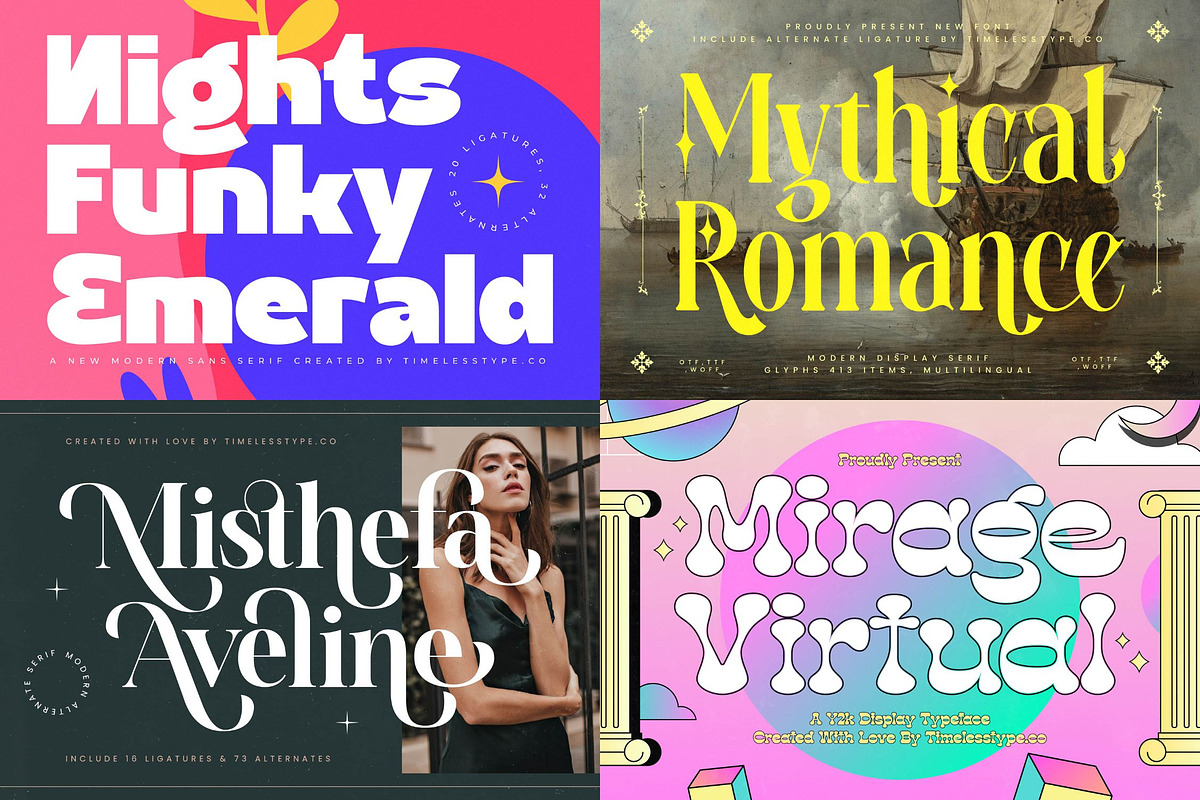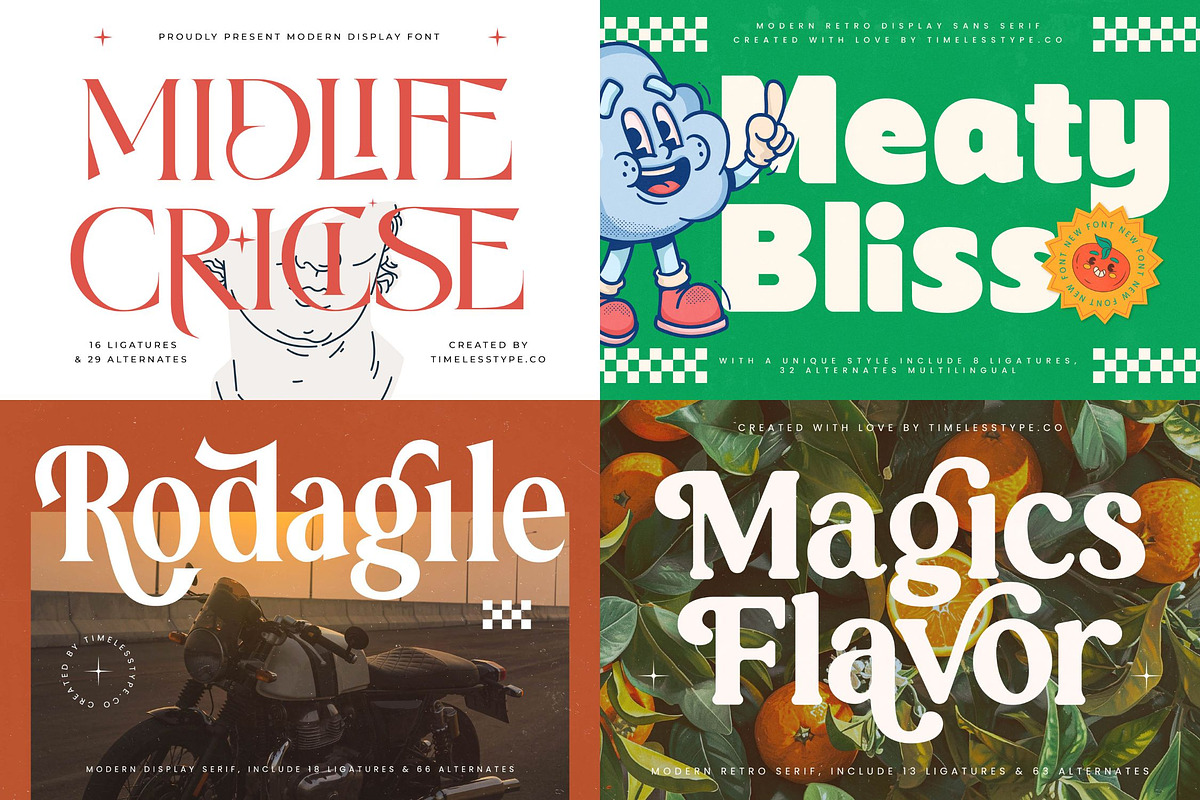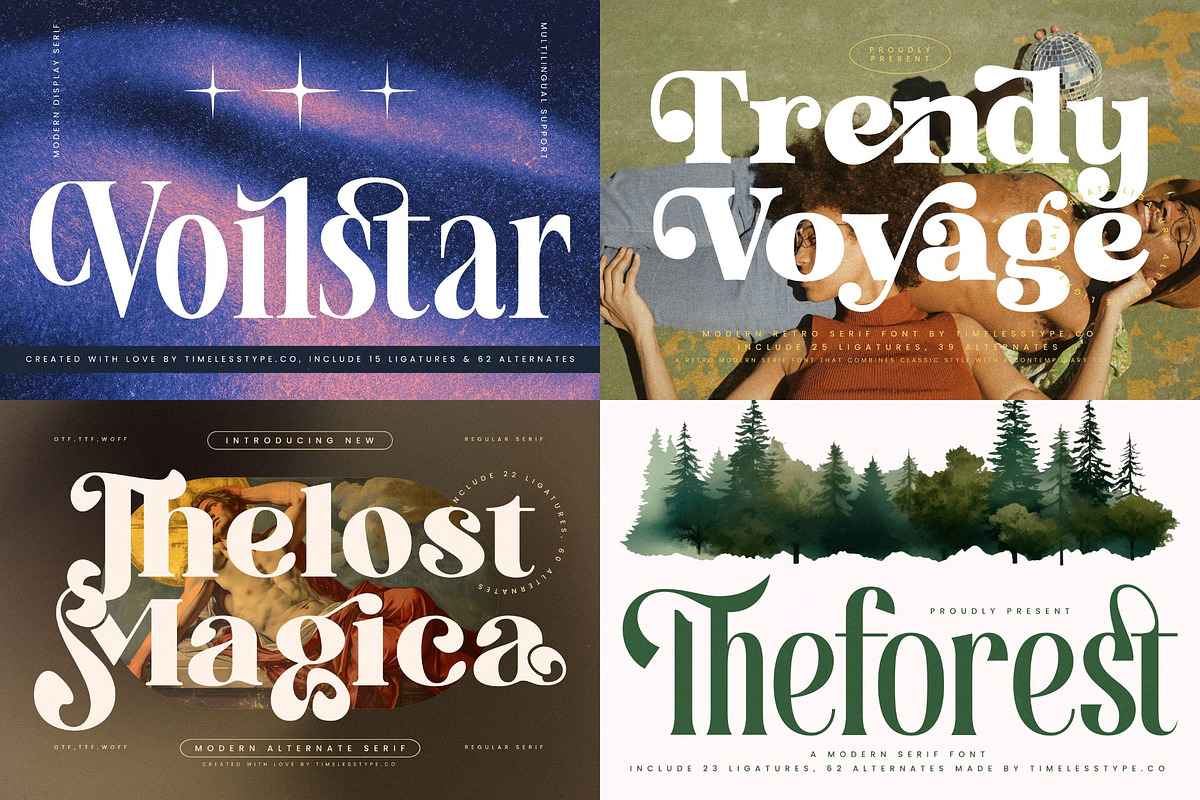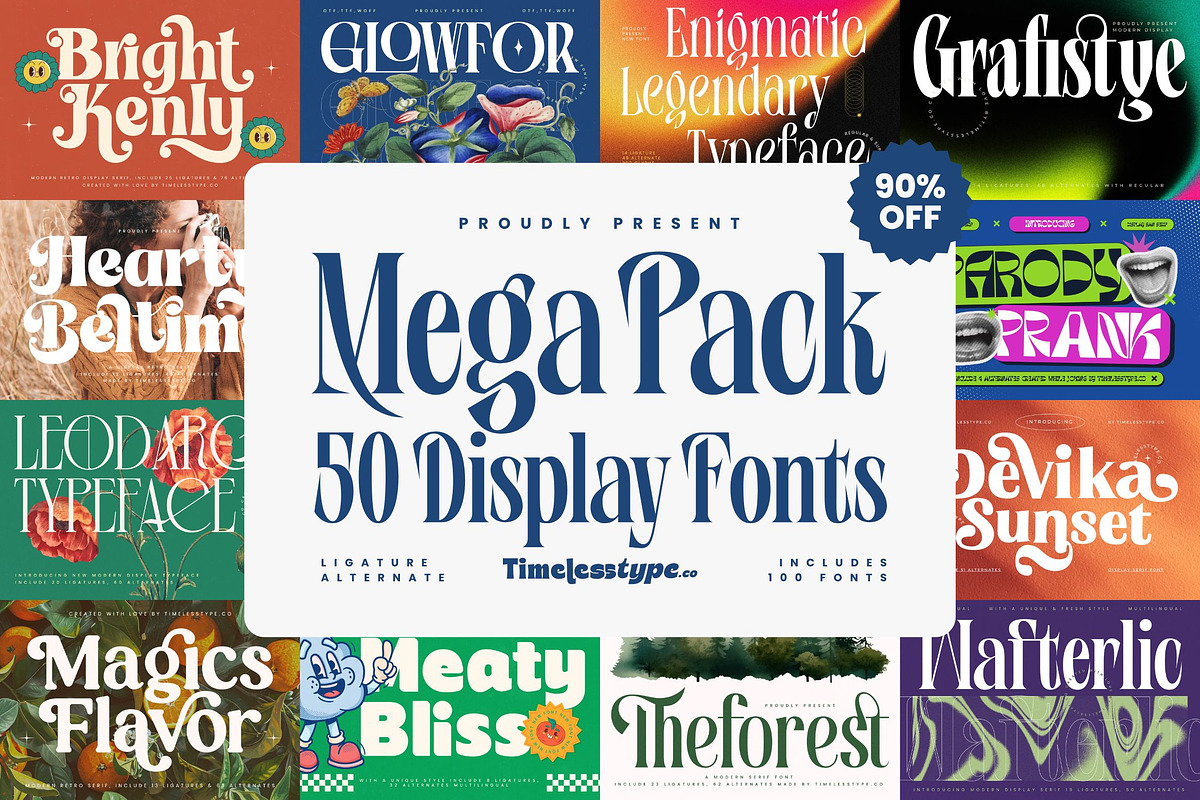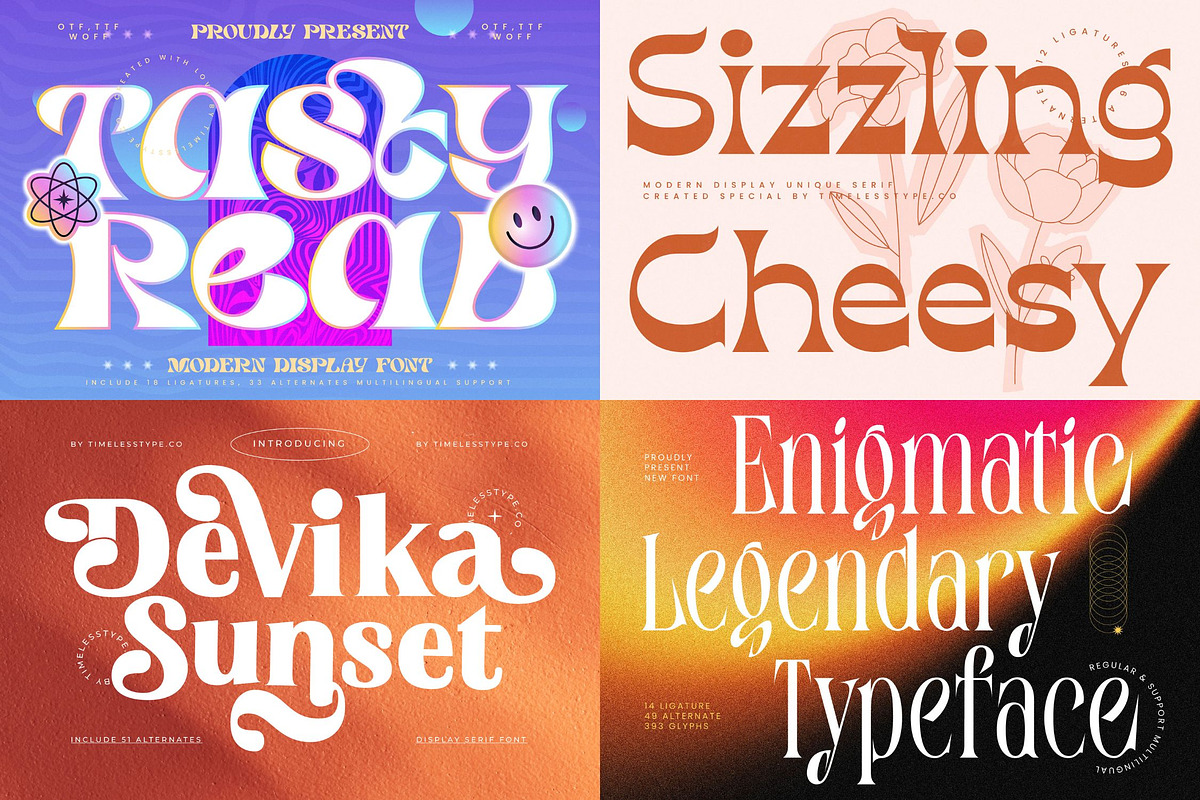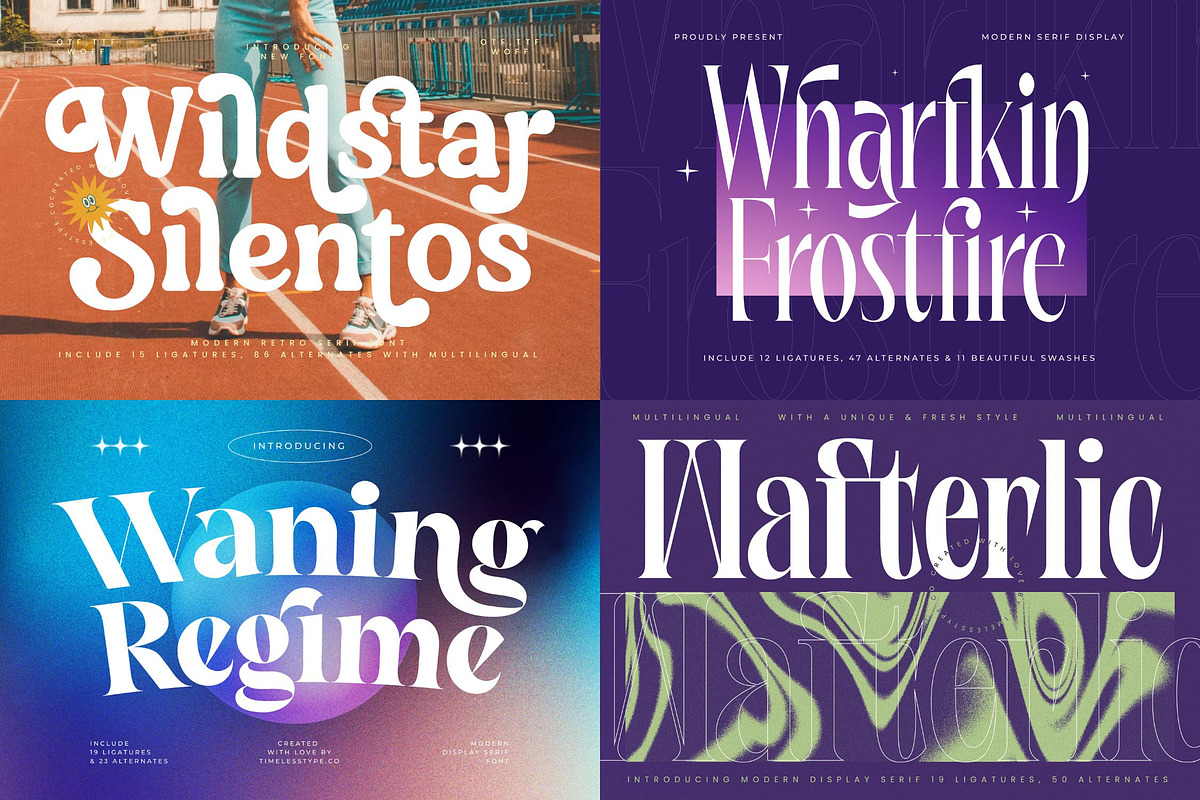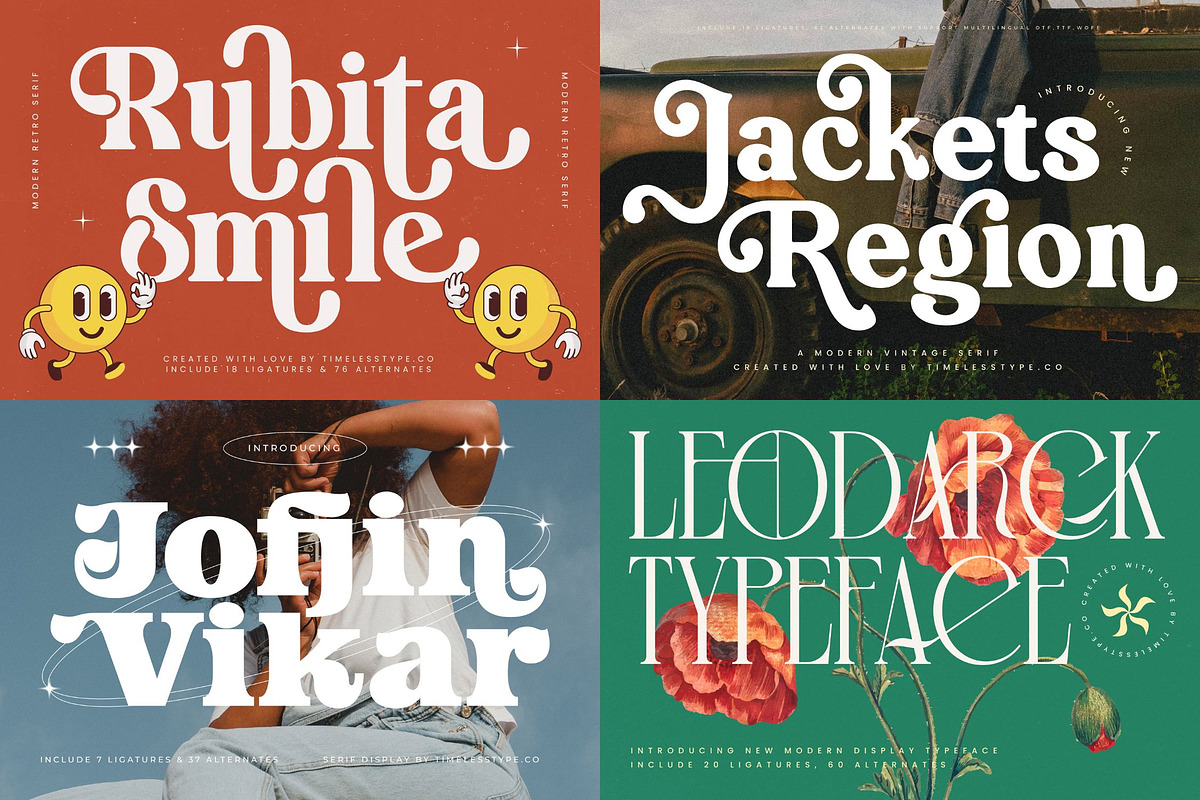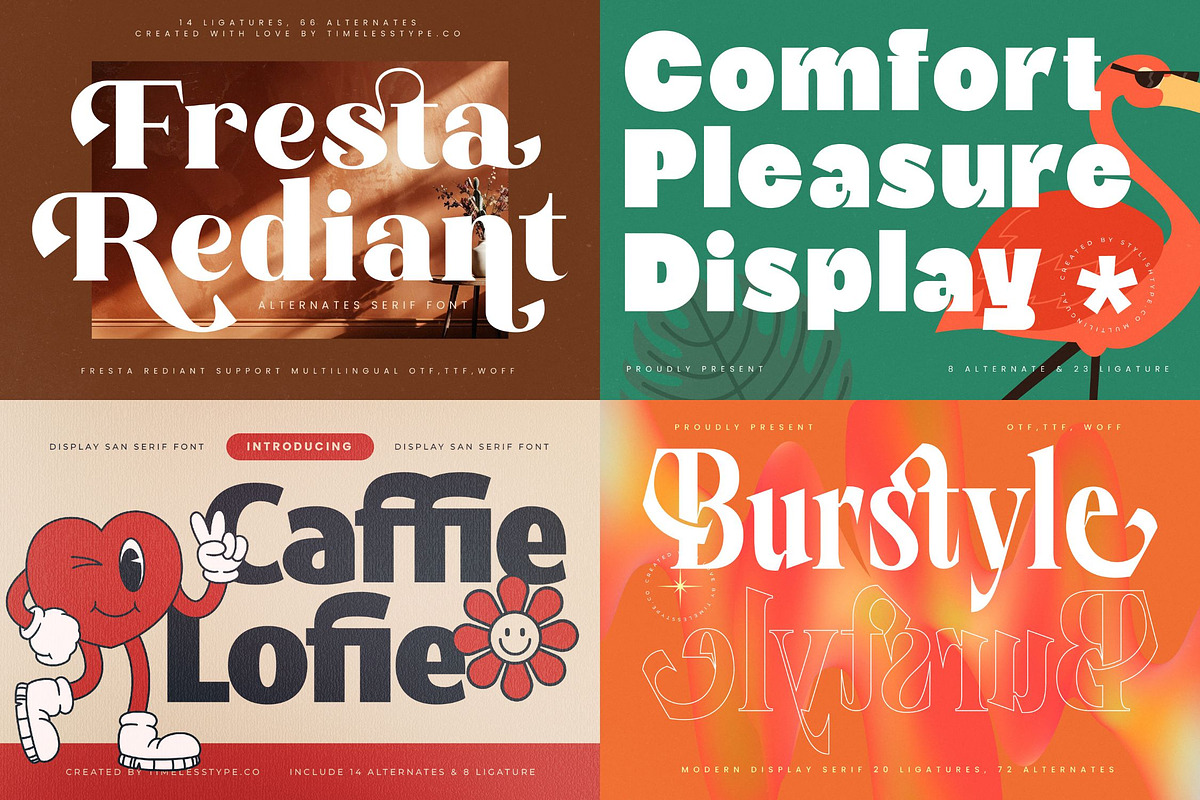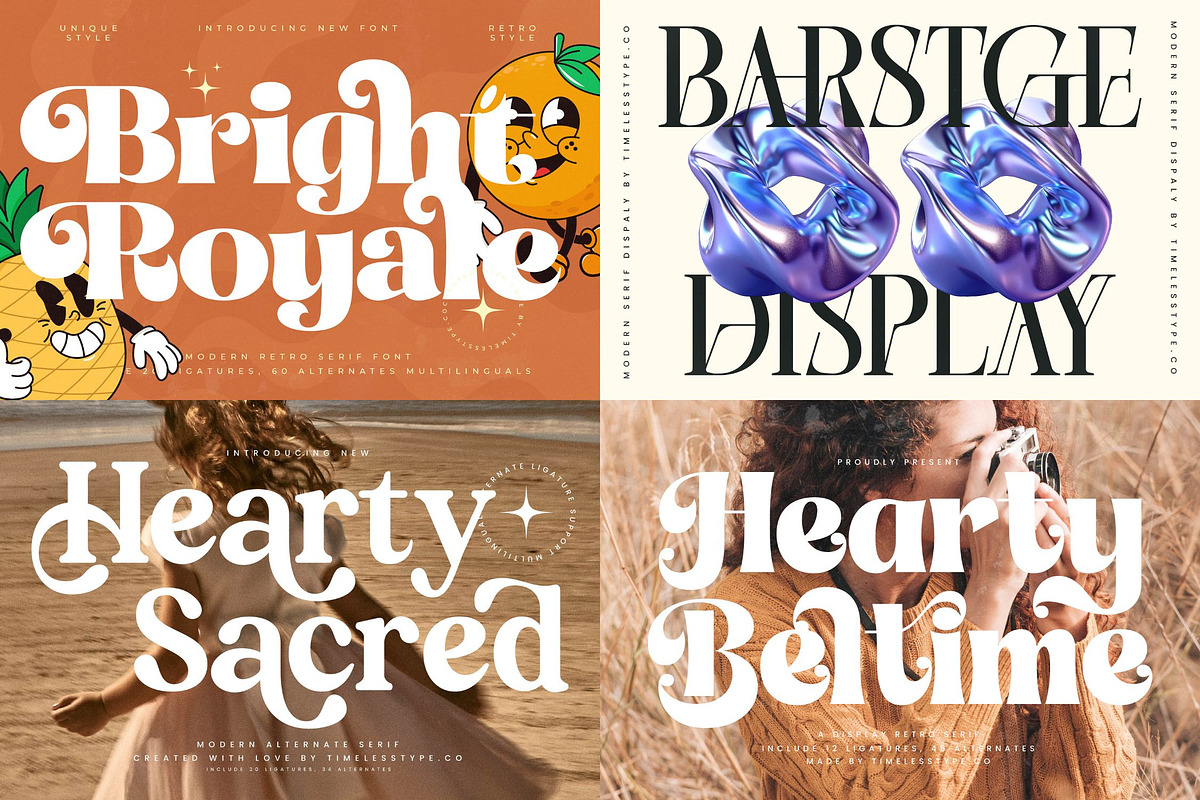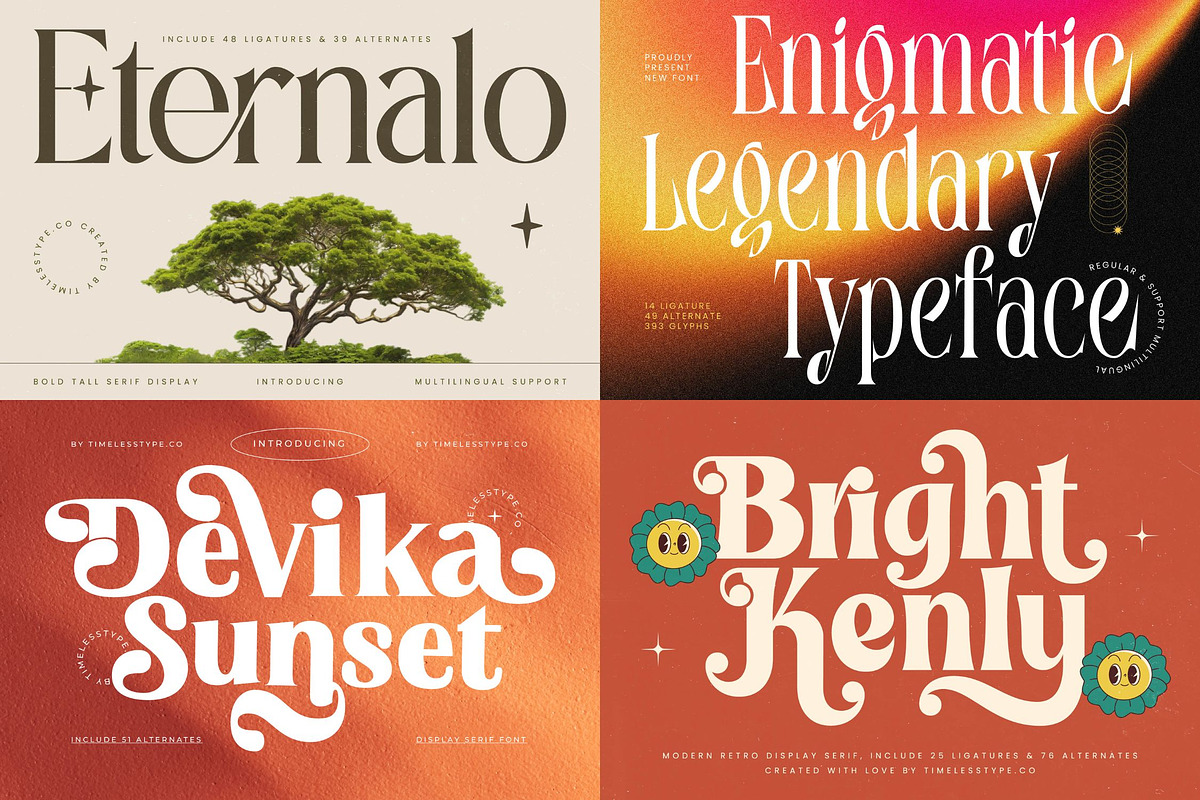
Mega Pack 50 Modern Display Fonts
Elevate your creative arsenal with the definitive Mega Pack 50 Display Fonts, a curated collection designed to breathe life into every project. This powerhouse bundle offers a symphony of styles that transition seamlessly from timeless elegance to bold, contemporary statements.
Drawing from the golden age of editorial design and the vibrant energy of modern pop culture, each typeface in this collection tells a unique visual story. Whether inspired by vintage botanical illustrations or the sharp edges of urban architecture, these fonts capture an atmosphere of refined sophistication and playful creativity.
This collection exudes a professional yet daring personality, perfect for designers who demand a high-level branding impact and luxury typography. Each modern serif display and high-contrast serif has been meticulously crafted to function as a versatile editorial font that commands attention while maintaining impeccable balance.
Staying ahead of the curve, this bundle taps into the current modern serif trend by offering character-driven typography that feels both fresh and nostalgic. These editorial display fonts are the perfect answer to the growing demand for expressive, unique type that breaks away from generic digital aesthetics.
From high-end logo design and comprehensive branding systems to exquisite packaging and chic fashion spreads, the versatility here is unmatched. It is an essential toolkit for editorial layouts, social media content, and sophisticated wedding stationery that requires a touch of bespoke elegance.
Every font in this massive bundle is packed with professional features including expansive ligatures and creative alternates to customize your look. With a wide range of decorative swashes and full multilingual support for international characters, you have everything needed for global design excellence.
The Mega Pack 50 Display Fonts is ideal for:
Branding & Logo Design – Build bold, unforgettable brand identities.
Packaging & Labels – Add depth, flair, and individuality to product designs.
Editorial & Print Design – Create striking magazine covers and page layouts.
Posters & Event Graphics – Ensure your promotions demand attention.
Digital Content & Social Media – Make posts, YouTube thumbnails, and ads visually powerful.
In essence, this is more than just a font collection — it’s a creative arsenal. With 50 display fonts included, you’ll have the versatility to tackle projects across print, web, and motion graphics. Every typeface has been thoughtfully developed to perform beautifully in both large displays and digital environments.